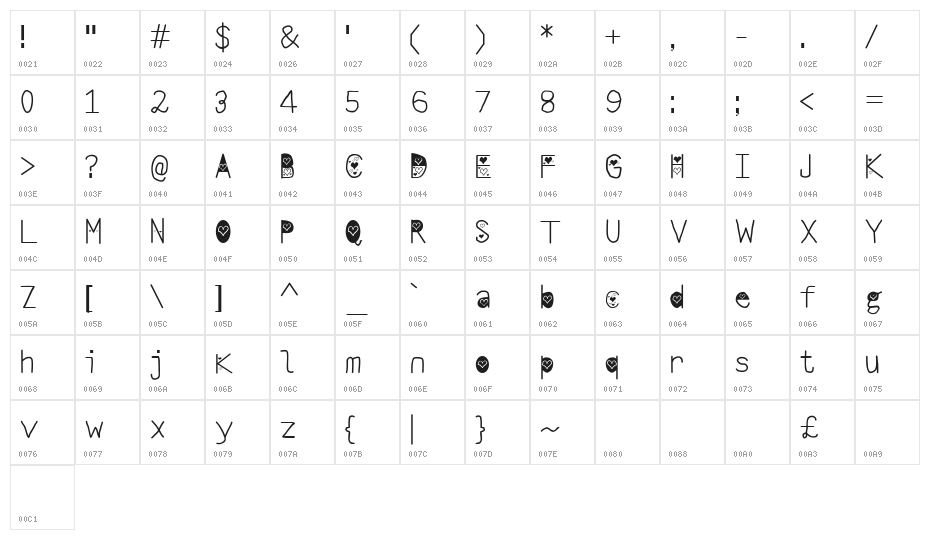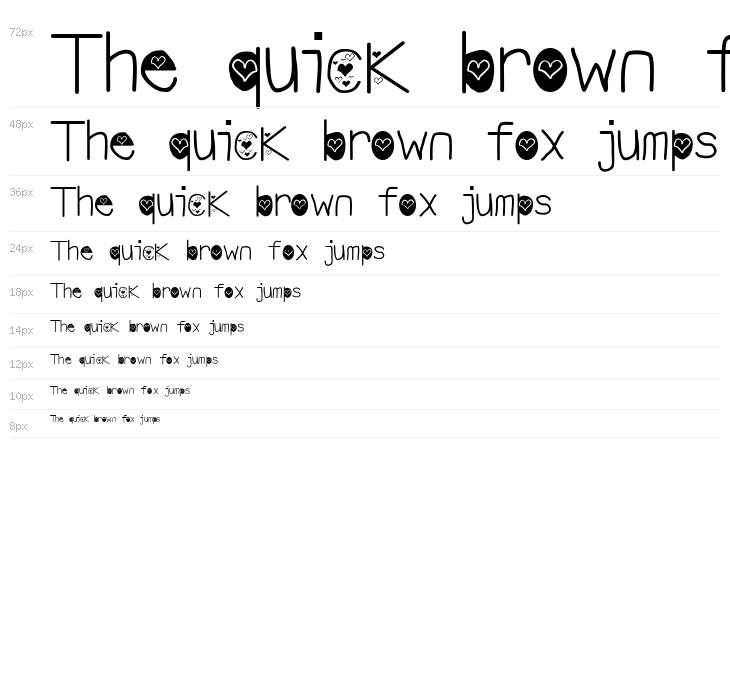
Misti 2 Font
Misti 2 Description
This playful and decorative font features a whimsical design with heart motifs embedded within the characters. The uppercase and lowercase letters are crafted with a mix of solid and outlined strokes, creating a lively and engaging appearance. The heart shapes are cleverly integrated into the letters, adding a touch of romance and fun. The numbers and special characters maintain the same playful style, making this font ideal for creative and lighthearted projects. Its unique design is perfect for capturing attention and conveying a sense of joy and affection.
| Use Case | Headlines, Logos, Invitations |
| Proposed Projects | Ideal for greeting cards, children's books, playful branding, and romantic event invitations. |